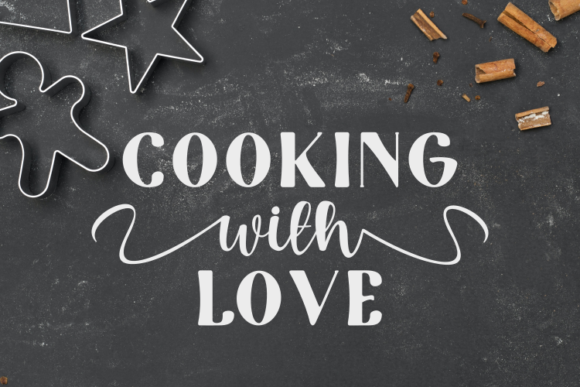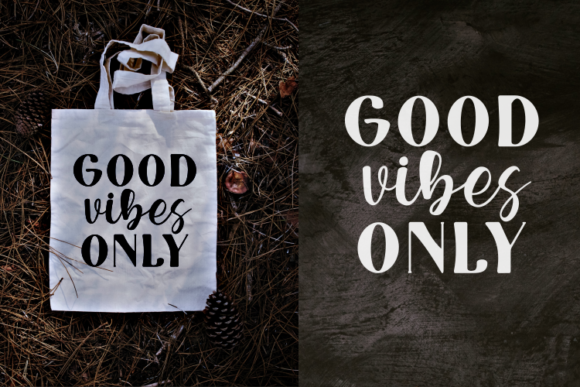
Tomato Kitchen Duo Font
db-ku.com - Script & Handwritten -- Tomato Kitchen is Duo font. It has an elegant and modern look that you can use for logos, branding, invitations, stationery, wedding designs, social media posts, and every other design.